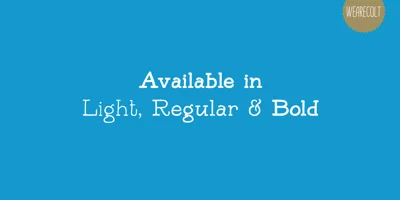
Bowler Hand Font
Bowler Hand Font is ideal for handwritten invitations, personal branding projects, greeting cards, journal designs, wedding stationery, craft projects, scrapbooking, quote graphics, social media posts, blog headers, restaurant menus, boutique branding, and any creative project that requires an authentic handwritten appearance with casual elegance.
What makes Bowler Hand Font exciting is its natural, organic feel that perfectly mimics genuine handwriting without sacrificing legibility or professional quality. This typeface captures the warmth and personality of authentic hand lettering, bringing a human touch to digital designs. The font's casual sophistication makes it perfect for projects that need to feel approachable, friendly, and genuinely crafted by hand.
The Bowler Hand Font family includes various weights and stylistic alternatives, featuring regular and bold versions along with decorative swashes and ligatures. This comprehensive collection allows designers to create natural-looking handwritten text with realistic variations in letter spacing and character formation, ensuring authentic handwritten aesthetics across all applications.
When exploring authentic script typography, Bowler Hand Font offers designers an exceptional opportunity to work with a typeface that delivers genuine handwritten charm without the inconsistencies of actual handwriting. This font showcases careful attention to detail in its construction, with subtle variations and natural flow that create believable handwritten text for professional applications.
Professional designers value Bowler Hand Font for its versatility in creating intimate, personal connections with audiences. The font's approachable character makes it particularly effective for brands wanting to establish trust and authenticity. Its readability across different sizes ensures consistent performance from large headlines to smaller body text, maintaining its handwritten charm throughout various design applications.
The contemporary appeal of Bowler Hand Font lies in its perfect balance between casual informality and professional reliability. This typeface brings the warmth of personal correspondence to modern digital communications, making it an excellent choice for brands and projects seeking to humanize their visual identity in an increasingly digital world.
For creative professionals seeking to add authentic personality to their designs, Bowler Hand Font represents the perfect solution for projects requiring genuine handwritten aesthetics with the reliability and consistency that only professional typography can provide.